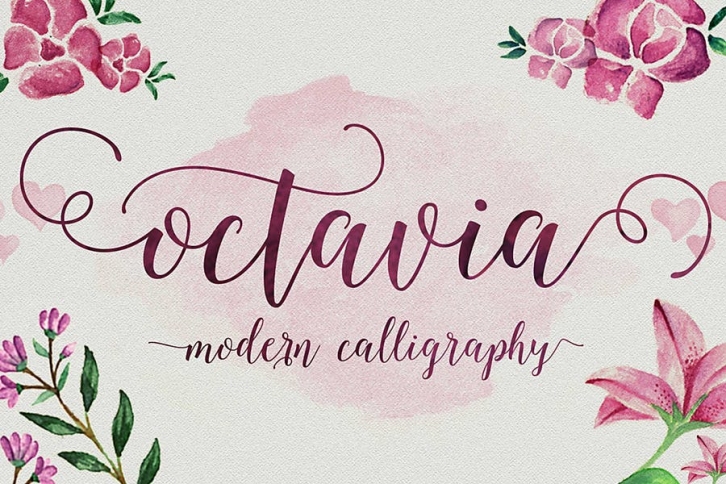
Octavia Script FONT Download
Octavia Script is another lovely modern calligraphy typefaces, which is combining the style of classic calligraphy with an modern style. The Features of this fonts is
• Contextual Alternates
• Discretionary Ligatures
• Stylistic Alternates
• Initial and Terminal Forms that setting up in Contextual swashes ( This fonts is automatically setting the initial and terminal forms as default, and if you want to turn off the initial and terminal just click the button of the contextual swashes, it more easier than opening the glyph tab)